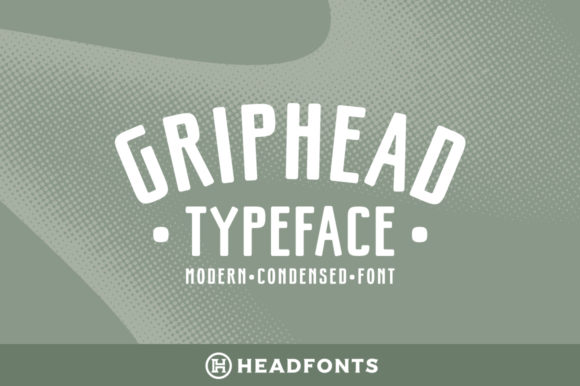
Meet Griphead Font, the epitome of boldness and class in the realm of sans serif fonts. Its timeless charm exudes an aura of sophistication and elegance that will leave you spellbound. Designed by the renowned Headfonts, Griphead is more than just a font; it's a statement, a reflection of your discerning taste.
Prepare to embark on a typographic journey like no other as you witness the mesmerizing dance of each letterform, crafted with precision and an unwavering attention to detail. Griphead's bold strokes command attention, while its refined curves add a touch of grace, creating a visual symphony that will elevate your designs to new heights.
Whether you seek to craft captivating headlines that demand attention, alluring logos that leave a lasting impression, or elegant body text that captivates readers, Griphead is your ultimate companion. Its versatility knows no bounds, effortlessly adapting to a myriad of creative endeavors.
Immerse yourself in the world of Griphead and unleash your imagination. Let its timeless beauty enhance your designs, captivating audiences and leaving them in awe. Embrace the power of Griphead and witness the transformative effect it brings to your creative endeavors.